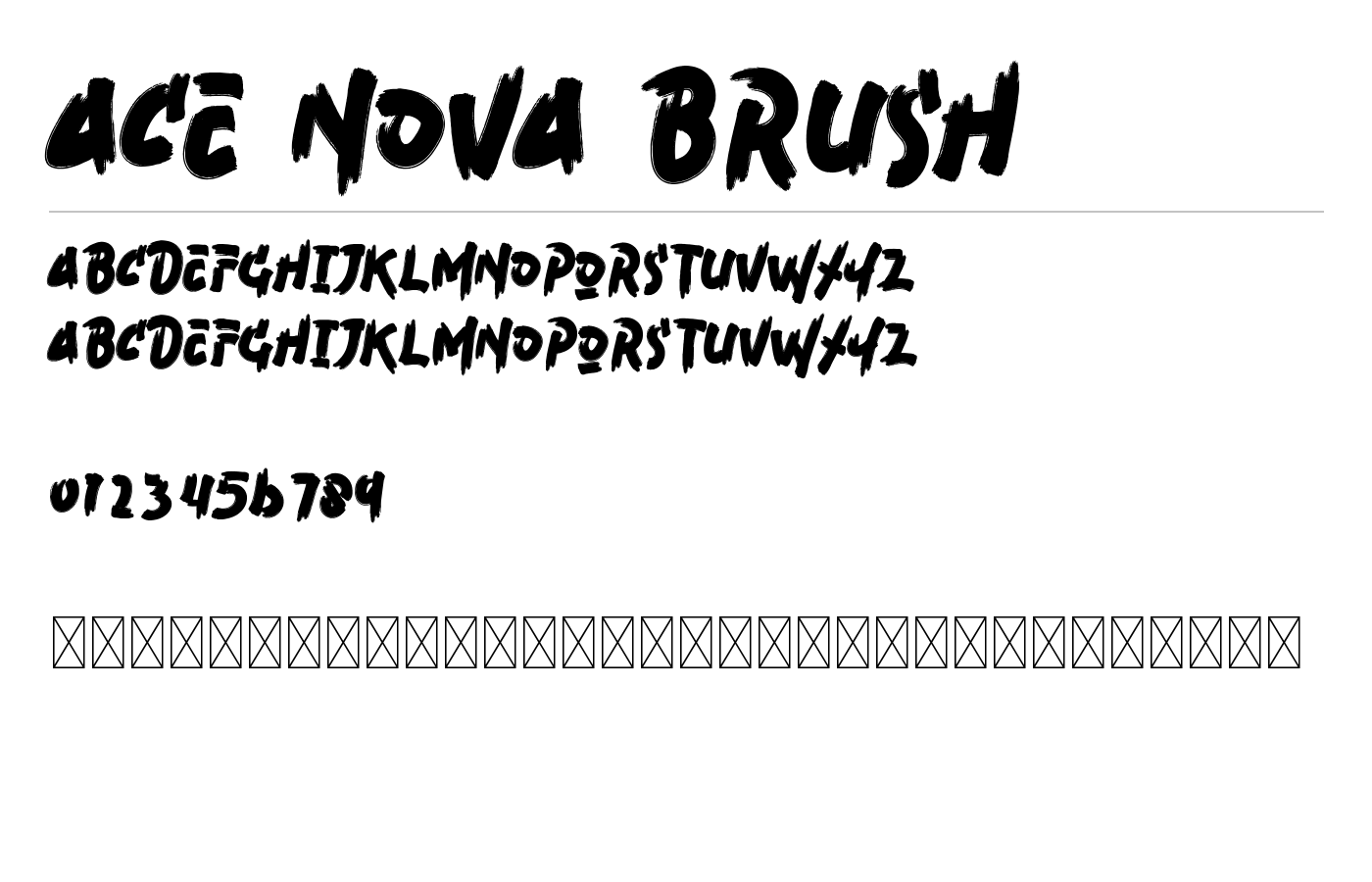
Ace Nova is a bold, expressive brush script font with a casual, hand-painted feel. Its thick, textured strokes create an energetic and artistic look, perfect for designs that want to stand out with a playful yet strong personality. This font works well in creative branding, posters, and headlines where an informal and dynamic touch is desired.
Ace Nova Font
About Ace Nova Font
| Font family | Ace Nova Font |
| Designer | Muhammad Afif Ersya |